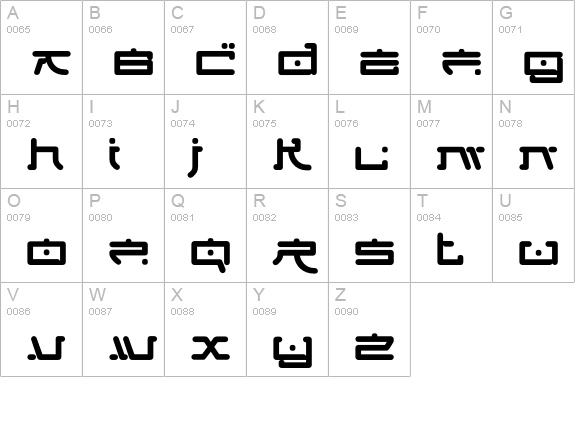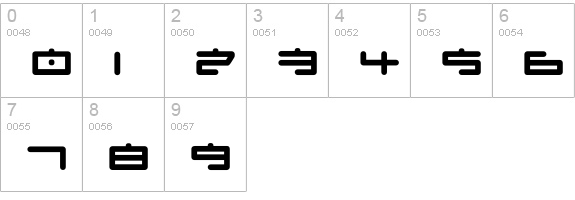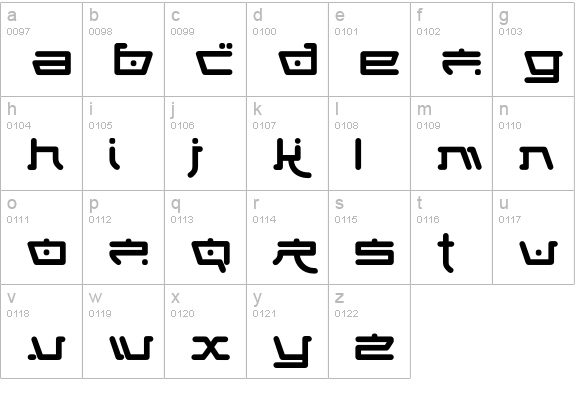
FungFoo Font Details
Introducing FungFoo font, a captivating typeface that effortlessly blends elegance with a touch of playfulness. This unique font features intricate details and graceful curves that make it perfect for a wide range of design projects. Whether you're creating invitations, branding materials, or social media graphics, FungFoo font will add a stylish and sophisticated flair to your work. What makes FungFoo font even more appealing is that it is completely free to download at FontsMarket.com. Yes, you read that right - this stunning font is available at no cost, allowing you to elevate your designs without breaking the bank. So why wait? Head over to FontsMarket.com today and add FungFoo font to your collection of design resources.